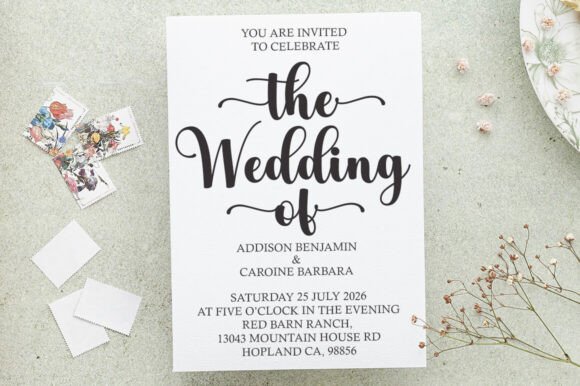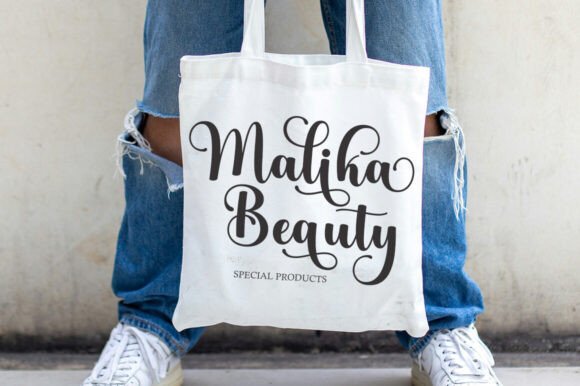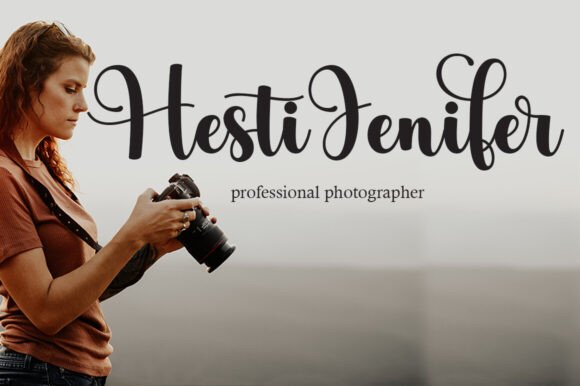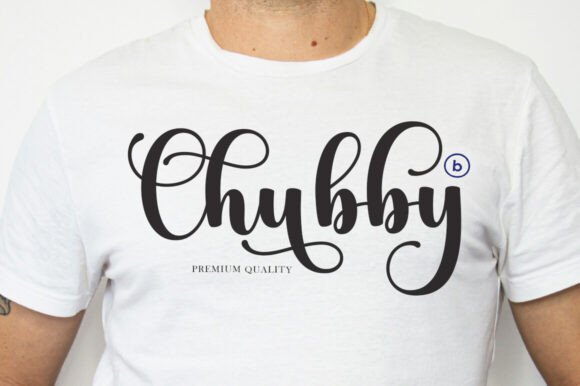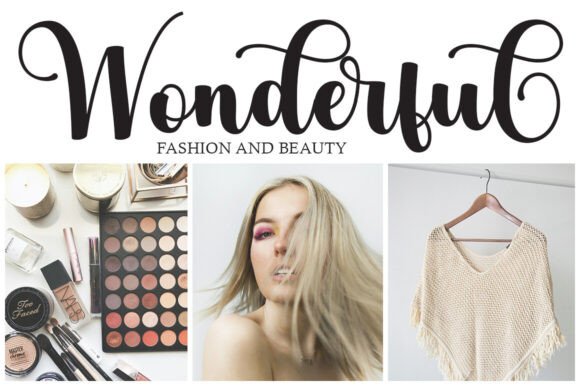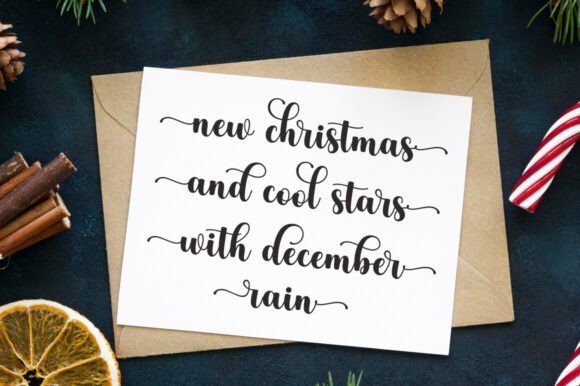
Discover the Enchanting Allure of Cheerful Font: Elevate Your Design Game
Are you looking for a font that can add a touch of elegance and charm to your designs? Look no further than the Cheerful font. This stylized lettering is perfectly poised to enhance the aesthetics of various design projects, from wedding invitations and thank you cards to personalized quotes and greetings. With its authentic handwritten touch, Cheerful font is sure to transform your designs and make them truly unforgettable.
The Perfect Font for Wedding and Event Designs
Wedding planners, event coordinators, and designers, rejoice! The Cheerful font is an excellent choice for creating stunning wedding invitations, save-the-date cards, and other event-related designs. Its elegant and charming appearance will set the tone for a memorable and joyous occasion. Whether you’re designing a formal or casual wedding invitation, the Cheerful font will add a touch of sophistication and whimsy to your design.
Here are some ideas for using Cheerful font in wedding and event designs:
- Wedding invitations and save-the-date cards
- Thank you cards and RSVP cards
- Personalized quotes and greetings
- Event programs and agendas
- Wedding menus and place cards
Bringing a Touch of Whimsy to Business Designs
Business ventures can also benefit from the artistic appeal of the Cheerful font. Use it to create eye-catching logos, business cards, and marketing materials that will make your brand stand out. The Cheerful font’s unique and stylish appearance will add a touch of personality to your brand, making it more relatable and memorable to your target audience.
Here are some ideas for using Cheerful font in business designs:
- Marketing materials and brochures
- Email newsletters and signatures
What Makes Cheerful Font So Special?
So, what sets the Cheerful font apart from other fonts? Here are a few features that make it truly special:
- Authentic Handwritten Touch: The Cheerful font has an authentic handwritten appearance that will add a touch of personality to your designs.
- PUA Encoded: The Cheerful font comes PUA encoded, making it easy to access all of its spectacular glyphs and graceful swashes.
- Elegant and Charming: The Cheerful font has an elegant and charming appearance that is perfect for a variety of design projects.
Tips for Using Cheerful Font in Your Designs
Here are a few tips for using the Cheerful font in your designs:
- Pair it with Other Fonts: Experiment with pairing the Cheerful font with other fonts to create a unique and visually appealing design.
- Use it for Headings and Titles: The Cheerful font is perfect for headings and titles, where its elegant and charming appearance can really shine.
- Add Swashes and Glyphs: Take advantage of the Cheerful font’s PUA encoding to add swashes and glyphs to your design.
In conclusion, the Cheerful font is a versatile and stylish font that can elevate your design game. With its authentic handwritten touch, elegant and charming appearance, and PUA encoding, it’s perfect for a variety of design projects, from wedding invitations and event designs to business logos and marketing materials. So why wait? Immerse yourself in the elegance and charm of the Cheerful font and take your designs to the next level!